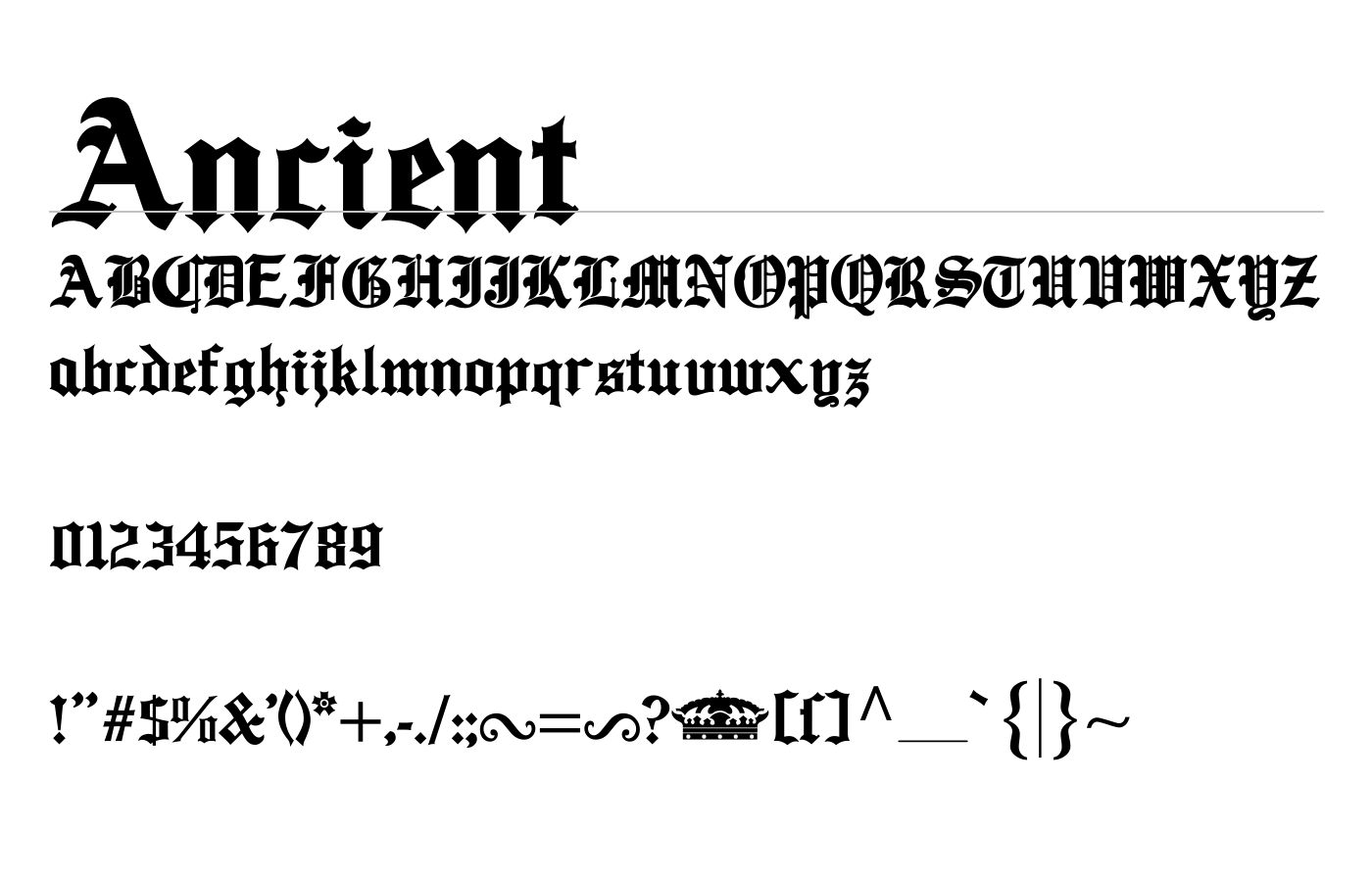
Ancient Font is a bold, blackletter serif typeface that evokes a historic and medieval feel with its strong, sharp strokes and intricate detailing. Its high contrast and decorative style make it perfect for creating a vintage or Gothic atmosphere, ideal for use in logos, posters, or branding that aims to convey tradition, authority, or a sense of old-world craftsmanship. This font works best in headlines or display settings where its dramatic character can truly stand out.
Ancient Font
About Ancient Font
| Font family | Ancient Font |
| Designer | Jorge Paulino |